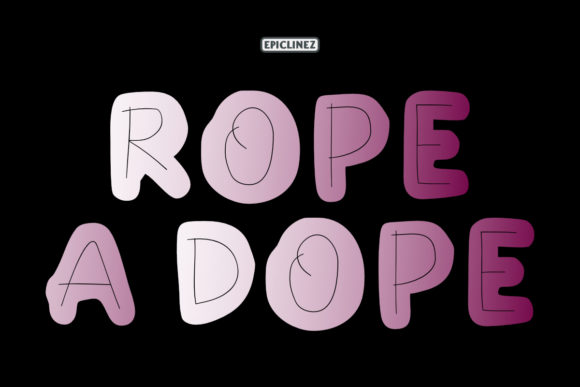
Get tangled up in the enthralling web of Rope a Dope, the font that oozes audacity and charm. This captivating display font, handcrafted by the adept digital artisans at Epiclinez, captivates with its bold strokes and whimsical dance of characters.
Unleash the vivacity of Rope a Dope and captivate your audience with its untamed energy. Picture the allure of book covers adorned with its audacious letterforms, the impact of posters reverberating with its vivacious spirit, and the intrigue of product packaging whispering its unique tale. Let your imagination soar as you witness billboards transformed into vibrant canvases, painted with the strokes of Rope a Dope's exuberant personality.
Embrace the versatility of Rope a Dope and unlock a world of creative possibilities. Its all-caps design bursts with energy, making it the perfect choice for titles and headings that demand attention. Harness its inherent boldness to craft logos that resonate with strength and individuality. Allow its playful curves to weave their magic in social media posts, captivating your audience with every scroll. Dive into the realm of digital marketing and let Rope a Dope elevate your campaigns with its unmistakable presence.
Indulge in the boundless creativity that Rope a Dope offers. Unleash your inner artist and let your imagination run wild. With this remarkable font as your muse, craft designs that radiate originality and leave a lasting impression. As you explore the depths of its potential, uncover hidden gems of inspiration, transforming ordinary projects into extraordinary creations.